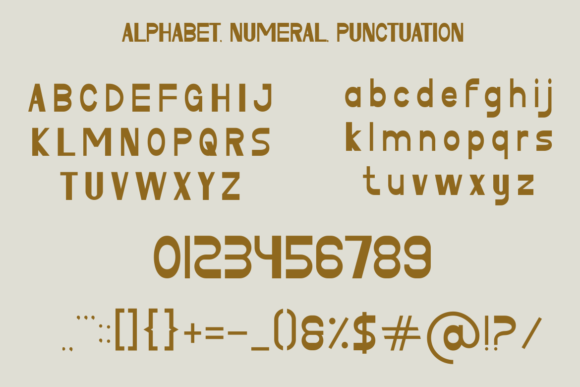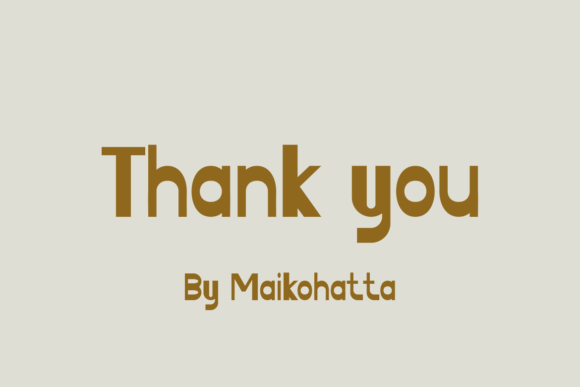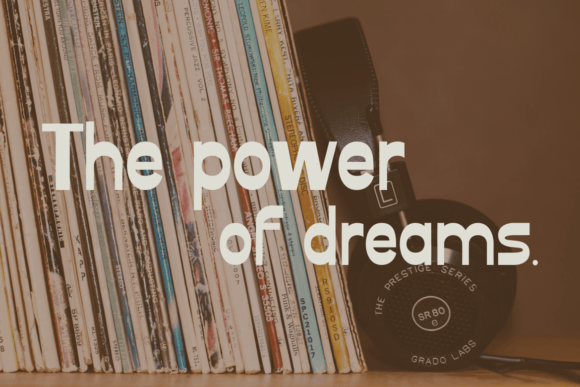
Introduction to Guilian Font
Guilian Font is a modern Sans Serif font with an authentic feel.
This lovely font is suitable for any branding project like logo, t-shirt printing, esports, and many more Outstanding in a wide range of contexts.
Key Features of Guilian Font